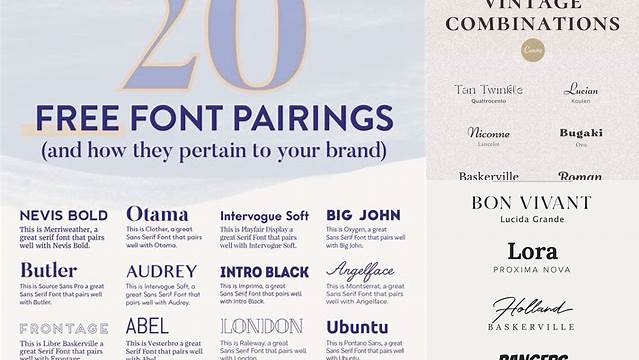
Font Pairing Perfection: A Guide To Stunning Font Combinations
Hey font lovers! Ever stared at a design and thought, "Man, those fonts just sing together?" That's the magic of a good font combination, guys. It’s not just about picking pretty letters; it’s about creating harmony, contrast, and ultimately, conveying your message with style and impact. Whether you’re a seasoned designer or just dipping your toes into the creative pool, mastering font pairing is a game-changer. It can elevate your website, your presentation, your social media graphics – seriously, everything!
The Undeniable Power of Serif and Sans-Serif Pairings
Alright, let's dive into one of the most classic and effective font combination strategies: pairing a serif font with a sans-serif font. This is like the peanut butter and jelly of the typography world, a go-to for a reason. Serif fonts, those with the little feet or decorative strokes, tend to exude a sense of tradition, reliability, and sophistication. Think of those elegant books and newspapers; they often use serifs to guide the eye and add a touch of gravitas. On the flip side, sans-serif fonts, which literally mean "without serif," are all about clean lines, modernity, and approachability. They’re often seen as more straightforward and easy to read on screens. When you combine these two, you create a dynamic contrast that’s visually interesting without being jarring. The serif can be your headline font, grabbing attention with its personality and class, while the sans-serif takes on the body text, ensuring readability and a clean, modern feel. This pairing is incredibly versatile and works across a wide range of projects, from corporate branding to personal blogs. The key is to find a serif and sans-serif that complement each other in terms of weight and x-height, ensuring they don’t fight for dominance but rather create a balanced and pleasing visual hierarchy. Experiment with different weights within each family too; a bold serif headline against a light sans-serif body can be incredibly effective. Don’t be afraid to explore various serif styles – from the robust slab serifs to the delicate old-style serifs – and pair them with equally diverse sans-serifs. The goal is always to create a dialogue between the fonts, where each enhances the other.
Mastering the Art of Contrasting Font Pairings
Beyond the serif-sans-serif dance, creating effective font combinations hinges on the principle of contrast. Contrast is what makes your design pop, what draws the eye, and what helps differentiate elements. When we talk about font contrast, we’re often looking at differences in: weight (bold vs. light), style (italic vs. regular), size (large headlines vs. small body text), and most importantly, classification (serif vs. sans-serif, script vs. display). A strong contrast helps establish a clear visual hierarchy, guiding your audience through the information effortlessly. For example, pairing a highly decorative or script font for a main heading with a simple, legible sans-serif for the supporting text can create a dramatic and engaging effect. The script font brings the personality and flair, acting as a visual hook, while the sans-serif ensures that the essential information is easily digestible. Similarly, pairing a bold, blocky display font with a thin, elegant serif can also yield stunning results. The trick here is to avoid too much contrast, which can lead to a chaotic and unprofessional look. You want contrast that is intentional and harmonious, not conflicting. Think of it as a conversation between two distinct voices; they should be different enough to be interesting but similar enough in their overall purpose to work together. When exploring contrast, consider the mood and tone you want to convey. A playful script with a geometric sans-serif might be perfect for a fun event invitation, while a strong slab serif with a clean grotesque sans-serif could be ideal for a rugged brand identity. The key is to ensure that the contrast serves the overall message and aesthetic of your design, making it more impactful and memorable.
Finding Harmony with Similar Font Families
While contrast is crucial for creating visual interest, there's also immense power in finding harmony within your font combinations. This often involves working with fonts that share similar characteristics or belong to the same font family. Think of it as a well-coordinated outfit where different pieces complement each other seamlessly. When you choose fonts that have similar x-heights, stroke widths, or overall moods, you create a sense of unity and sophistication in your design. This approach is particularly effective when you want to maintain a clean, minimalist, or very structured aesthetic. For instance, pairing different weights or styles within the same font family is a foolproof way to achieve harmony. A bold italic sans-serif for a headline paired with a regular weight sans-serif for body text from the same family will feel inherently cohesive. This ensures consistency and readability while still allowing for subtle visual variation. Another way to achieve harmony is by selecting fonts from different families that share subtle resemblances. Perhaps two sans-serif fonts with similar geometric structures, or two serif fonts with comparable stroke contrast. The goal here is not to eliminate contrast entirely but to ensure that the differences are subtle and contribute to a unified overall feel. This can create a nuanced and understated elegance that is highly professional. Harmony in font pairing can also extend to the mood or personality of the fonts. Pairing two fonts that are both described as